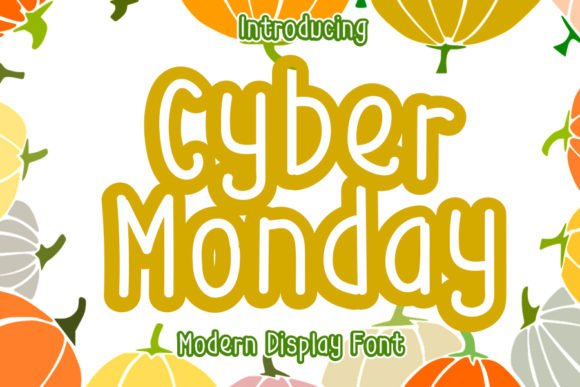
The Perfect Font for a Digital Age
You know that feeling when you’re working on a project and you finally find the perfect font to bring everything together? It’s like a little spark of creativity ignites, and you know you’re on the right track. That’s exactly what happened when designers stumbled upon the Cyber Monday Font – a modern display font that’s both stylish and readable.
Cyber Monday Font is the perfect addition to any fashion branding or editorial design project. Its smooth curves and sleek lines make it a valuable asset for designers looking to add a touch of sophistication to their work. Whether you’re creating a brochure, a website, or a social media campaign, this font is sure to elevate your design and leave a lasting impression.
Cyber Monday Font Key Features
- Font Family: Cyber Monday is a sans-serif font family designed for digital use.
- Font Size: Available in 4 font weights: Light, Regular, Medium, and Bold, each with a corresponding font size range (10pt – 72pt).
- Unique Characteristics: Features a modern, clean design with a subtle hint of futuristic feel, making it ideal for digital interfaces and web applications.
Cyber Monday Font Review
Overall, I’d say the Cyber Monday Font is a decent addition to any digital design project. Here are a few things it gets right:
- ✨ The font’s futuristic vibe is on point, perfect for tech-savvy audiences.
- ✨ The bold and italic styles are well-executed, adding variety to the overall design.
- ✨ The font is highly legible, even at smaller sizes.
- ⚠️ The font lacks a clear, cohesive direction. It feels like a hodgepodge of different styles, which can make it harder to use effectively.
- ⚠️ The font’s range is somewhat limited. It’s not ideal for use in large blocks of text or for more formal designs.
Overall, I’d recommend the Cyber Monday Font for projects where you want to add a bit of futuristic flair, but not for more complex or formal designs. With a bit of creativity and restraint, it can be a valuable addition to your design toolkit.
The Cyber Monday font is ideal for promotional materials, such as flyers, posters, and social media graphics. It’s also great for creating a sense of urgency and excitement around sales and promotions.
To get the most out of the Cyber Monday font, use it in bold and italic styles to add emphasis and create visual interest. You can also pair it with other fonts to create a unique and eye-catching design.